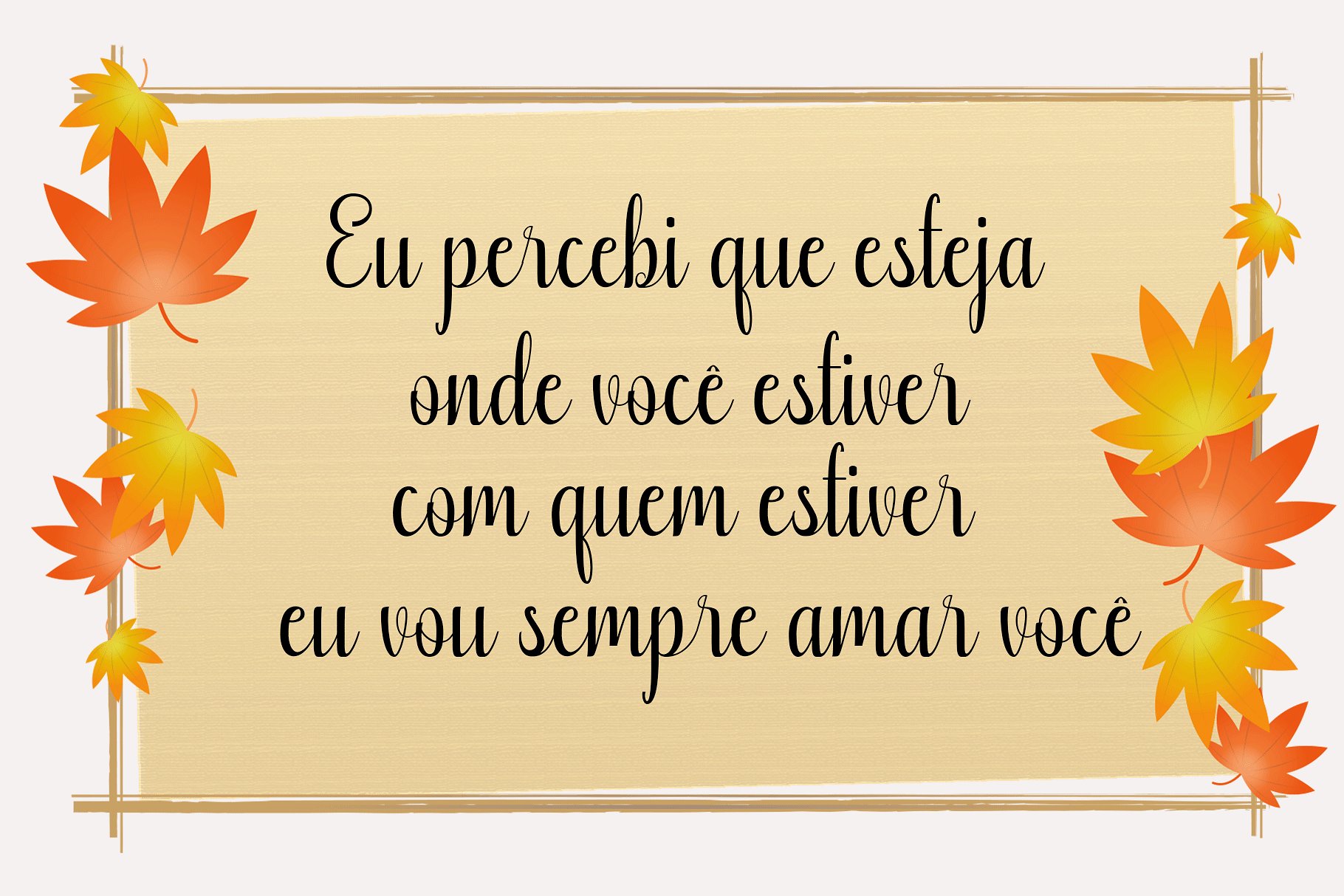
Boutique Calligraphy Font
A new modern calligraphy font. This font is specially created for those of you who need a touch of elegance to design your projects next with perfect results and amazing. Introducing Boutique Font. Khinta designed and shared by Deniz86. Boutique Calligraphy Font a work that is purely handwritten, has natural characteristics. It’s perfect for invitations, signatures, blogs, social media, business cards, product brands.
Boutique is a simple font that has Stylistic standards, Stylistic Alternatives. and includes uppercase and lowercase letters, numbers and punctuation.